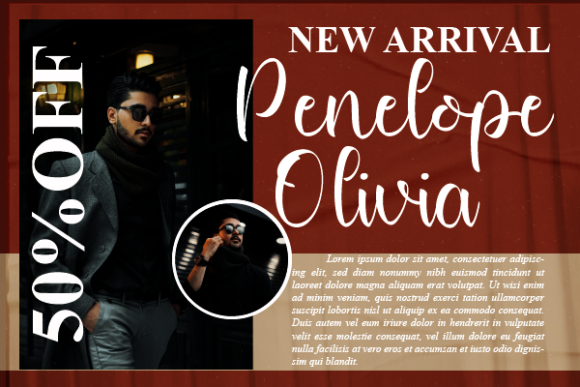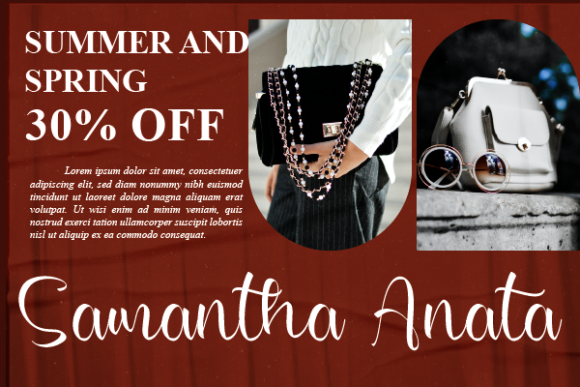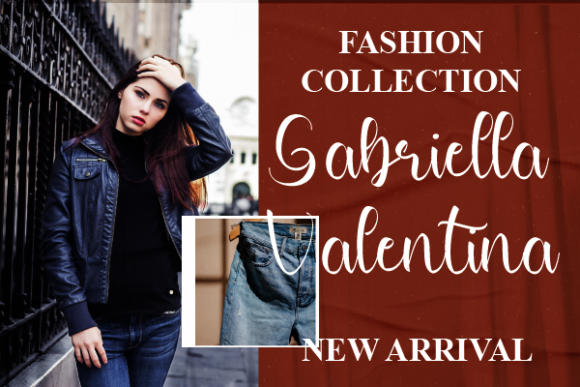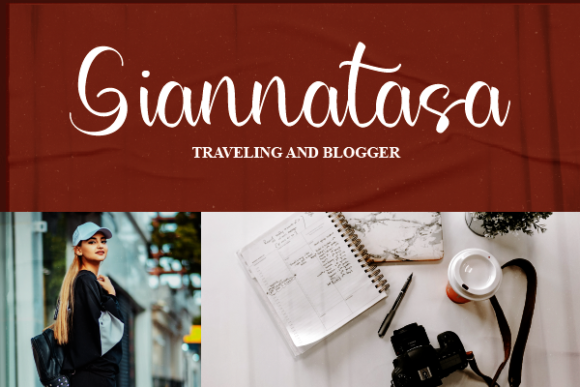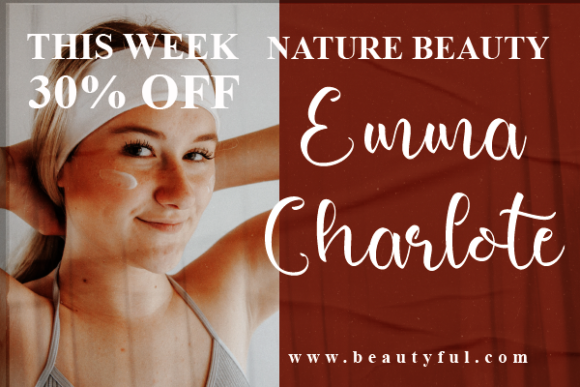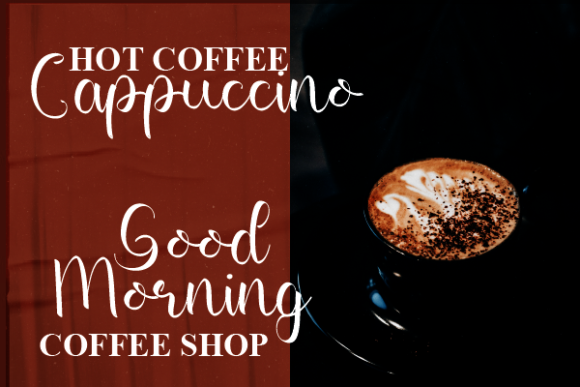
The Perfect Script for Your Next Design Project
Have you ever stared at a blank canvas, pen in hand, searching for the perfect font to bring your creative vision to life? You’re not alone. For designers, finding the right typography can be a make-or-break moment. It’s the difference between a design that falls flat and one that truly shines.
Enter Andrea Sienna Font, a delicate and fashionable script font that’s perfect for any branding project. Whether you’re designing logos, t-shirt printing, or creative products, Andrea Sienna Font is sure to make your design stand out. Its elegant curves and refined details make it a valuable asset for designers looking to add a touch of sophistication to their work.
With Andrea Sienna Font, the possibilities are endless. From elegant invitations to quirky t-shirt designs, this font is sure to elevate your work to the next level. So why settle for a generic font when you can have a beautiful, one-of-a-kind script that sets you apart from the rest?
Andrea Sienna Font Key Features
- Font Family: Andrea Sienna
- Font Type: Script
- Font Size: 4,000+ glyphs, including Latin, Greek, Cyrillic, and Extended Latin characters
- Unique Characteristics: Elegant, cursive script design with a touch of sophistication and refinement, ideal for formal invitations, wedding stationery, and high-end branding
Andrea Sienna Font Review
I recently had the chance to work with the Andrea Sienna font, and overall, I’m impressed with its elegant and sophisticated vibe. Here are some of the things that work well:
- ✨ Beautiful script connections that flow nicely, creating a seamless reading experience.
- ✨ A wide range of language support, making it suitable for projects that require multilingual content.
- ✨ Various font styles and weights available, allowing for versatility in design.
However, I did encounter a few limitations:
- ⚠️ Limited support for older versions of Microsoft Office, which can cause compatibility issues.
- ⚠️ May not be suitable for body text due to its elegant, script-based design, which can be tiring to read in large quantities.
Overall, I’d say the Andrea Sienna font is perfect for projects that require a touch of sophistication and elegance, such as wedding invitations, luxury branding, or high-end packaging design. Its beautiful script connections and wide language support make it a great choice for designers looking to add a personal touch to their work.
The Andrea Sienna font is a beautiful, elegant font that works well for:
- Formal event invitations.
- High-end branding and marketing materials.
Remember to use the font consistently throughout your design to achieve a cohesive look.
Alex Brush is a beautiful script font perfect for creative projects, such as branding, packaging, and advertising. Its elegant and sophisticated design makes it ideal for use in formal settings. Compared to Andrea Sienna Font, Alex Brush has a more refined and artistic look, making it suitable for projects that require a touch of elegance.